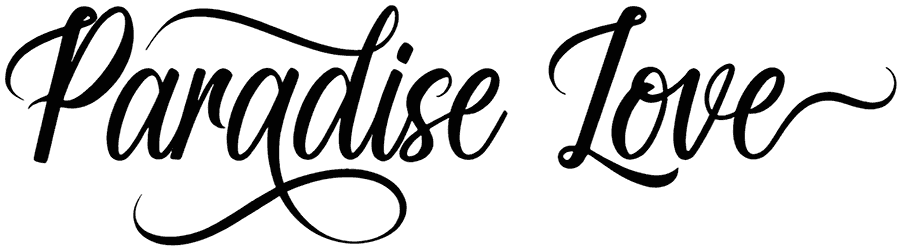
Paradise Love Font
Have you ever been so touched by what’s in front of you that you just can’t look at something else? The sexy style of Paradise Love, along with its poetic vibes, can have a similar effect on you. So give it some time. Let the beauty sink into your soul.
If we didn’t know any better, we would have said it’s written in a love potion or something. Anyway, is this love font the best way to design Valentine’s Day posters or what?